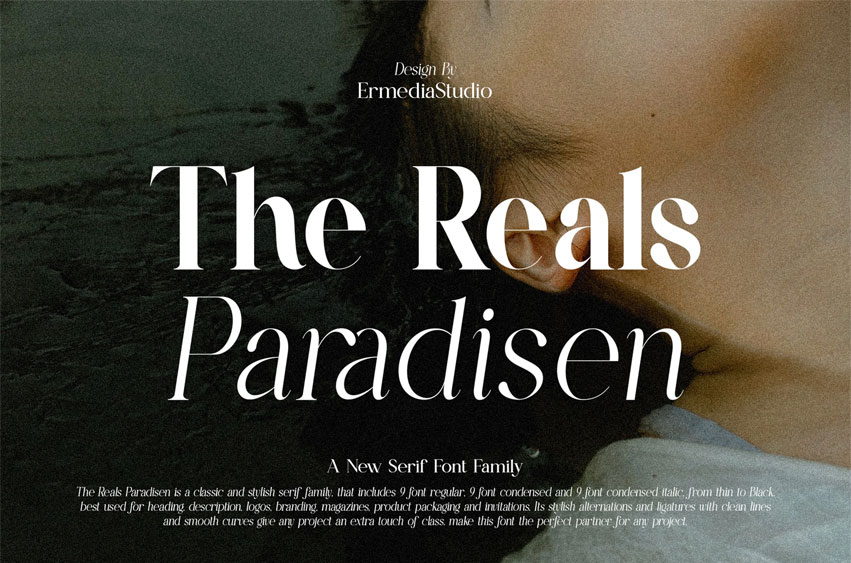
The Reals Paradisen Font
The Reals Paradisen Font is a New Classic Serif Family. The Reals Paradisen is a classic and stylish serif family that includes 9 font regular, 9 font condensed, and 9 font condensed italic, from thin to Black, best used for headings, descriptions, logos, branding, magazines, product packaging, and invitations.
Its stylish alternations and ligatures with clean lines and smooth curves give any project an extra touch of class. Make this font the perfect partner for any project.